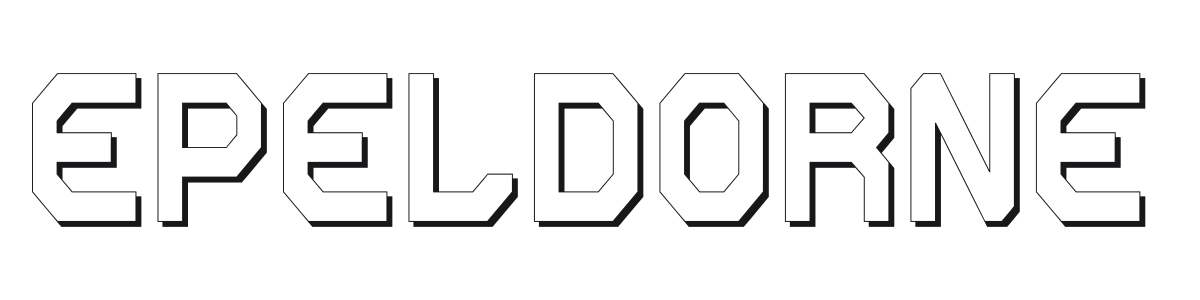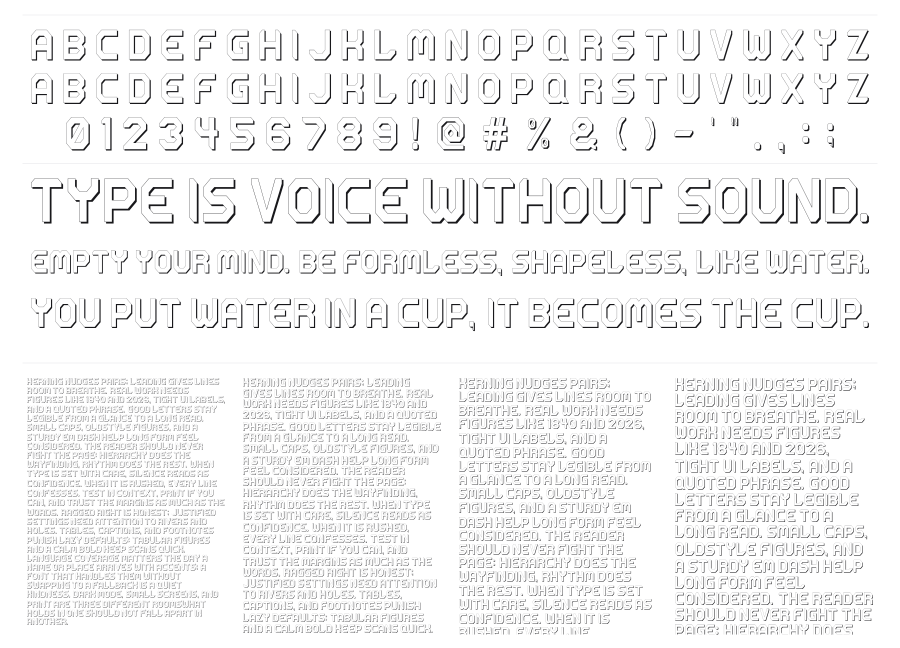
Epeldorne
Epeldorne is a bold geometric outline font with a built-in three-dimensional drop shadow that gives every character a chunky, faceted depth. Its wide, blocky construction and sharp angled terminals draw on 1970s retrofuturist design, somewhere between arcade signage and science fiction title cards. The outlined shadow style demands large sizes and high contrast backgrounds.